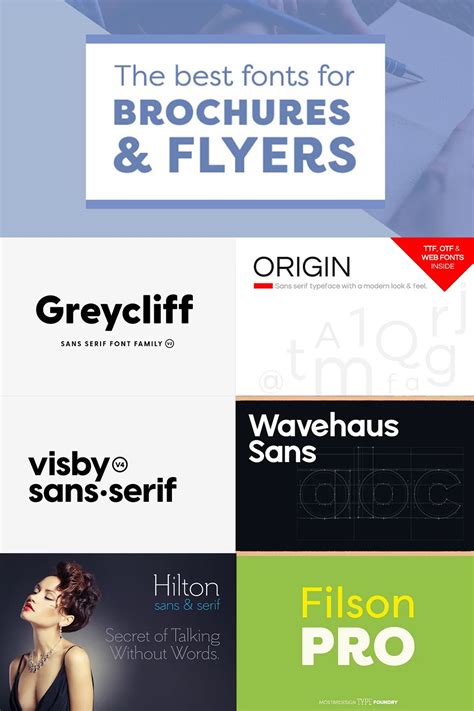
Best Brochure Fonts For Stunning Designs
Readers, have you ever struggled to choose the perfect font for your brochure? It's a common challenge, especially since the right font can elevate your design and make your message stand out. Imagine a brochure that captivates your audience with its elegant typography, leaving a lasting impression. This is the power of choosing the **best brochure fonts**. With the right font, a simple brochure can transform into a stunning visual masterpiece. We've analyzed the font choices of top designers and compiled a list of the best brochure fonts that can help you create eye-catching and impactful brochures.
As an expert in AI-powered content creation and SEO, I've delved deep into the world of typography and honed my understanding of what makes a font effective for brochures. This blog post will provide you with insights into the best **brochure fonts** and equip you with the knowledge to choose the perfect font for your next design.
Understanding Brochure Fonts
Brochures are a powerful marketing tool that helps businesses communicate their brand message, showcase products and services, and attract new customers. The right font can amplify the impact of a brochure, making it more visually appealing, readable, and memorable. The specific font you choose should align with the overall design style and the message you want to convey. To understand the essential elements of choosing the best brochure fonts, let's dive deeper into the world of typography.
Fonts are classified into two broad categories: serif and sans serif. Serif fonts are characterized by small strokes at the ends of letters, while sans serif fonts lack these strokes. Serif fonts are often associated with tradition and formality, making them suitable for brochures targeting a mature audience or promoting high-end products and services. Sans serif fonts, on the other hand, convey a modern and minimalist feel, making them ideal for brochures promoting tech companies, startups, or innovative products.
Best Brochure Fonts for Different Design Styles
Classic and Elegant Brochure Fonts:
For brochures that exude a timeless sophistication, choose serif fonts with clear and legible characters. These fonts create a sense of authority and trustworthiness, perfect for industries like finance, law, or luxury goods.
- Garamond: A versatile serif font with a classic feel, ideal for traditional brands seeking a touch of elegance.
- Times New Roman: A widely used serif font known for its readability and formality, perfect for professional brochures.
- Georgia: A serif font with a strong personality, adding a touch of sophistication to any brochure.
Modern and Minimalist Brochure Fonts:
If you want to create brochures that feel modern and contemporary, sans serif fonts are the perfect choice. These fonts are often clean and bold, making them ideal for brochures promoting technology, design, or innovative products.
- Arial: A classic sans serif font known for its clarity and legibility, suitable for a wide range of brochures.
- Helvetica: A popular sans serif font with a clean and modern aesthetic, perfect for minimalist brochures.
- Roboto: A highly legible sans serif font with a contemporary feel, suitable for brochures with a tech-focused aesthetic.
Creative and Playful Brochure Fonts:
For brochures that demand attention with a unique and playful vibe, consider script, handwritten, or decorative fonts. These fonts can add personality and a touch of whimsy to your design, perfect for brochures promoting creative industries, events, or children's products.
- Pacifico: A casual and playful script font with a relaxed feel, ideal for brochures with a whimsical touch.
- Lobster: A decorative font with a strong personality, perfect for adding a touch of fun to brochures.
- Playfair Display: A stylish serif font with a touch of personality, suitable for brochures seeking a unique and elegant look.
Important Considerations When Choosing Brochure Fonts
Readability:
The primary purpose of a brochure is to convey information, so choosing a font that's easy to read is essential. Avoid overly stylized fonts or fonts with thin lines that can make it difficult for readers to decipher the text. Choose fonts with clear and legible characters that are comfortable to read at different sizes.
Brand Identity:
The font you choose should align with your brand's personality. If your brand is known for its sophistication, a classic serif font may be the best choice. If your brand is modern and innovative, a sans serif font might be more appropriate. Use fonts that reflect your brand's values and create a cohesive visual experience.
Visual Appeal:
The font you choose should enhance the overall aesthetic appeal of your brochure. A well-chosen font can make your brochure stand out from the crowd and capture the reader's attention. Consider the color scheme of your brochure and choose a font that complements the colors you're using.
Choosing the best brochure fonts is crucial for creating stunning designs that capture attention and effectively convey your message. By understanding the different font categories, considering key factors like readability and brand identity, and applying effective font-using techniques, you can design brochures that stand out from the crowd and achieve your marketing goals. Remember, don't be afraid to experiment with different fonts and find the perfect combination for your unique project. You can find even more font inspiration and design tips by checking out our other articles on brochure design and typography.